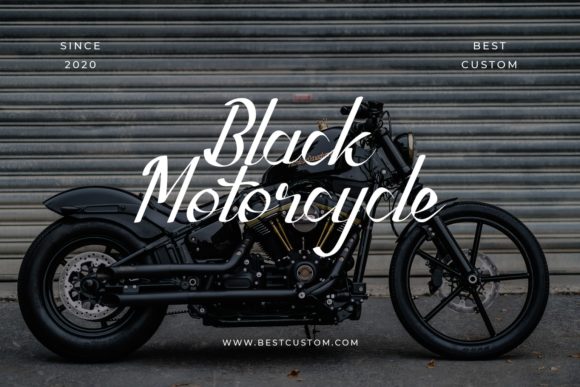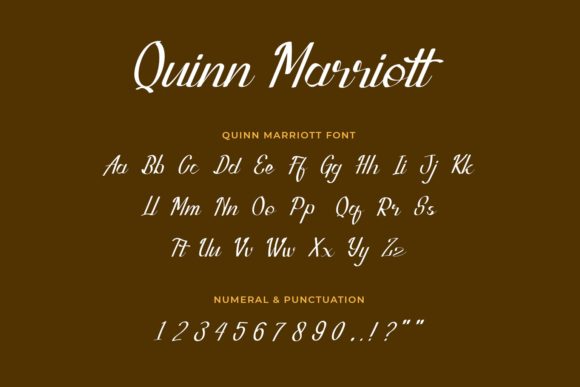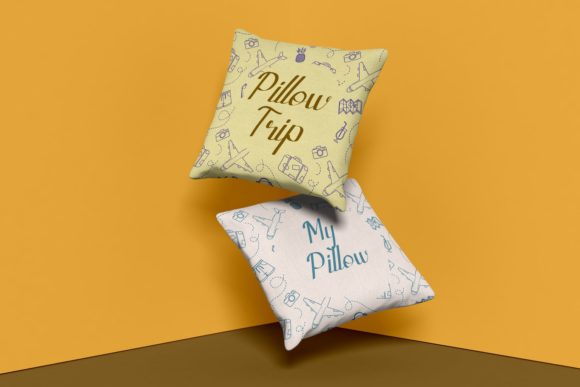
Introduction to Quinn Marriott Font
Quinn Marriott is a delicate, elegant and flowing handwritten font.
It has beautiful and well balanced characters and as a result, it matches a wide pool of designs Add it to your most creative ideas and notice how it makes them come alive.
Quinn Marriott Font offers exceptional quality and versatility, making it a valuable addition to your design toolkit. Whether you’re creating for personal projects or commercial use, Quinn Marriott Font delivers professional results.